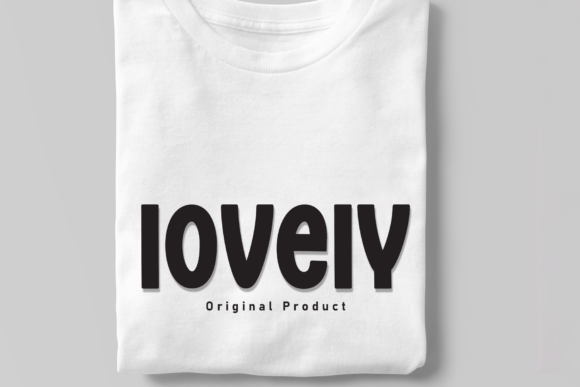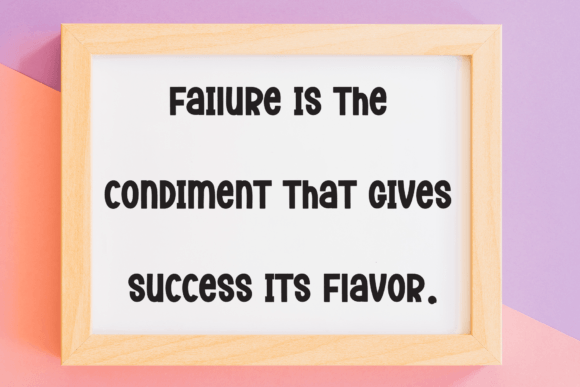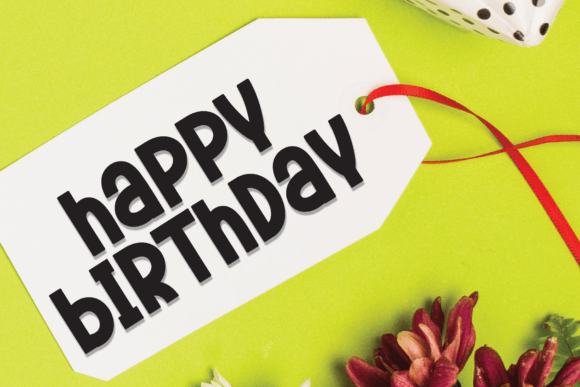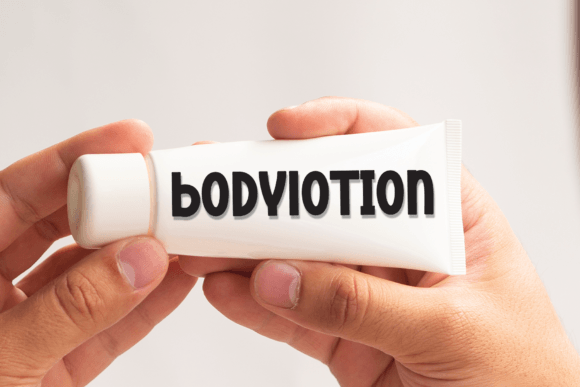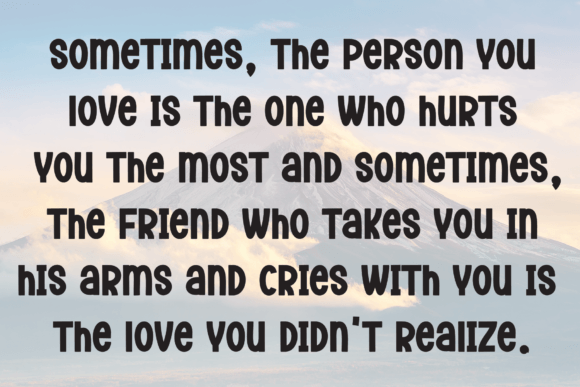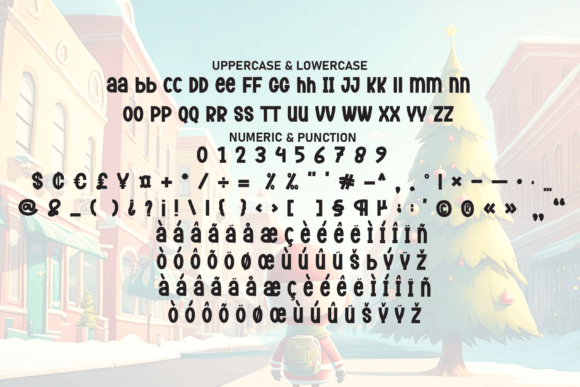
Introducing Comic Christmas Font: A Charming Handwritten Display Font
Are you looking for a font that can add a touch of sweetness and playfulness to your designs? Look no further than the Comic Christmas Font! This charming and sociable handwritten display font is perfect for designers and crafters who want to bring a dash of fun and magic to their work.
A Delightful Aesthetic
The Comic Christmas Font boasts an adorable and playful aesthetic that is sure to capture the attention of your audience. Its delightful charm is perfect for wedding invitations, cards, and any design seeking an element of fun. Whether you’re creating a festive holiday card or a whimsical wedding invitation, this font is sure to breathe life into your design.
As a designer or crafter, you’re always on the lookout for fonts that can help you create unique and eye-catching designs. The Comic Christmas Font is a must-have for anyone who wants to add a touch of cheerfulness to their work. Its playful and charming aesthetic makes it perfect for a wide range of design projects, from holiday cards and invitations to party decorations and more.
Key Features of Comic Christmas Font
- Handwritten Display Font: The Comic Christmas Font is a handwritten display font that features a unique and playful aesthetic.
- Charming and Sociable: This font is designed to be charming and sociable, making it perfect for designs that require a touch of personality.
- Adorable and Playful: The Comic Christmas Font boasts an adorable and playful aesthetic that is sure to capture the attention of your audience.
- Perfect for Festive Designs: This font is perfect for festive designs, including holiday cards, invitations, and party decorations.
Benefits of Using Comic Christmas Font
There are many benefits to using the Comic Christmas Font in your designs. Here are a few:
- Unique and Eye-Catching: This font is sure to make your designs stand out and grab the attention of your audience.
- Perfect for Festive Designs: The Comic Christmas Font is perfect for festive designs, including holiday cards, invitations, and party decorations.
- Versatile: The Comic Christmas Font can be used for a wide range of design projects, from wedding invitations to holiday cards.